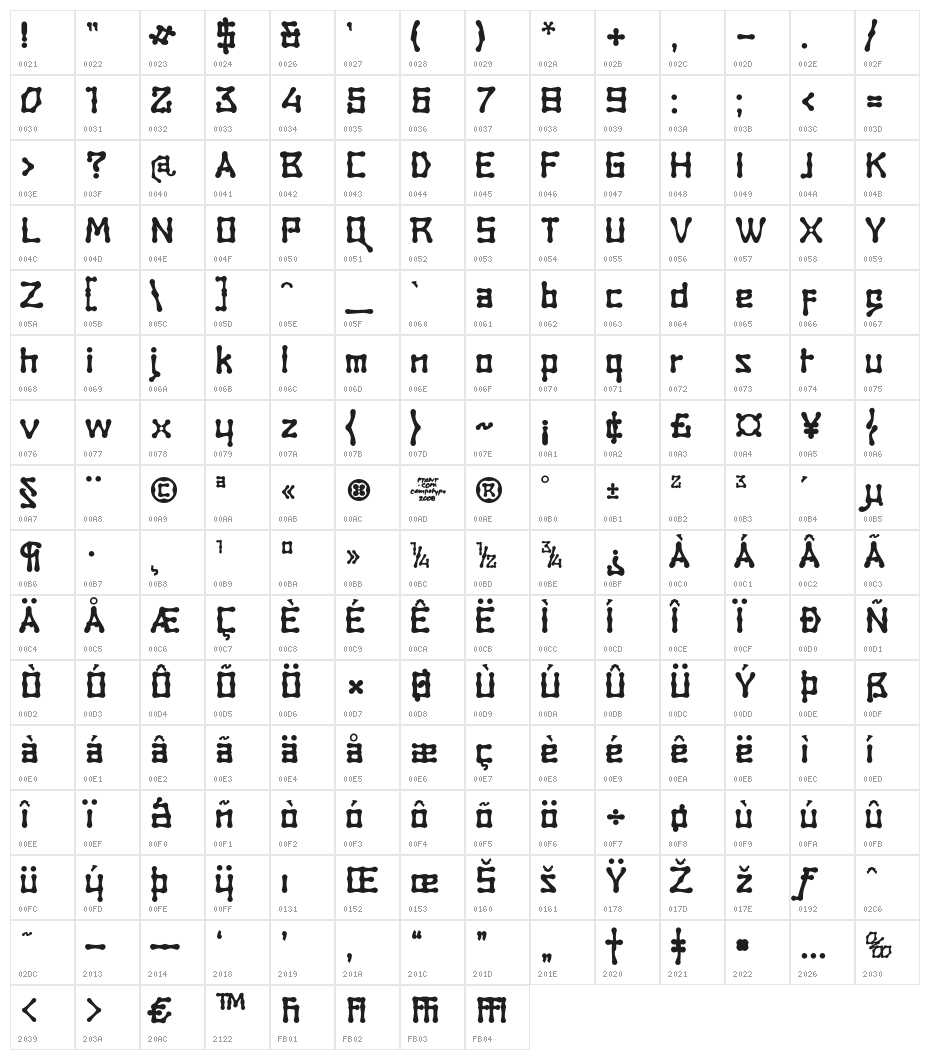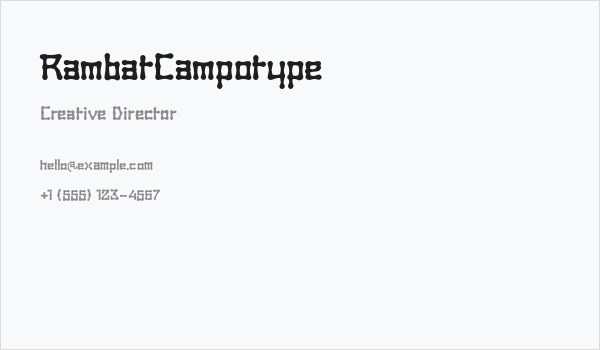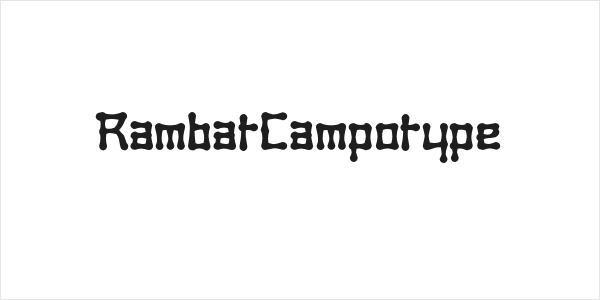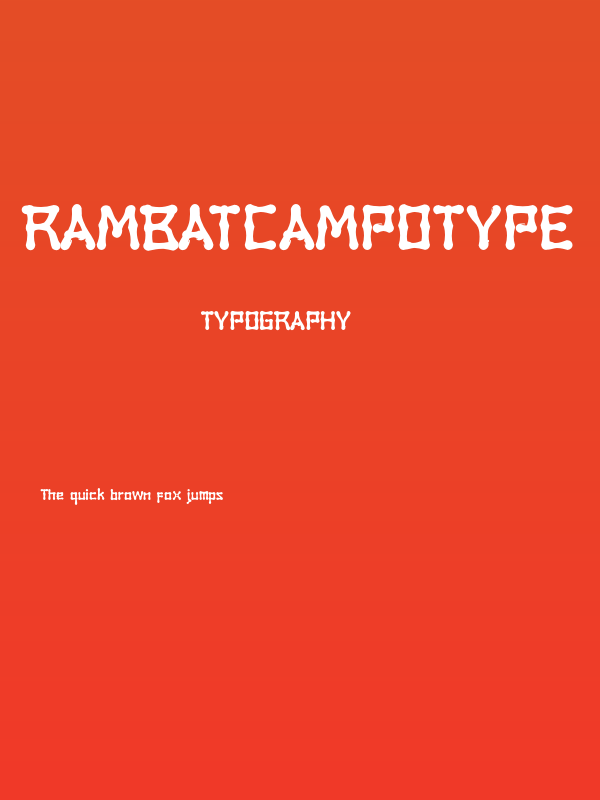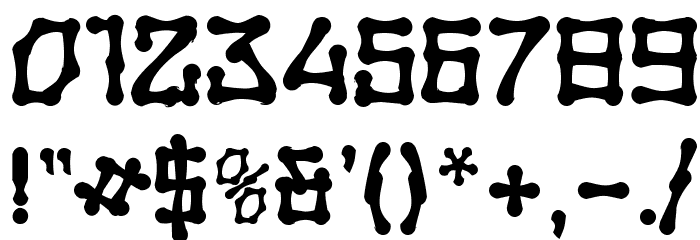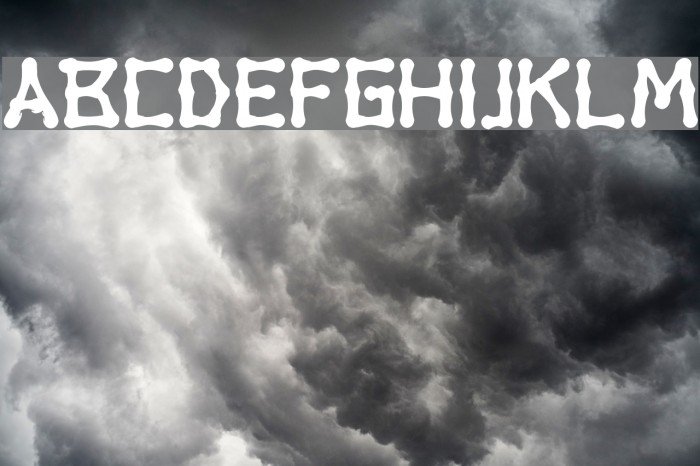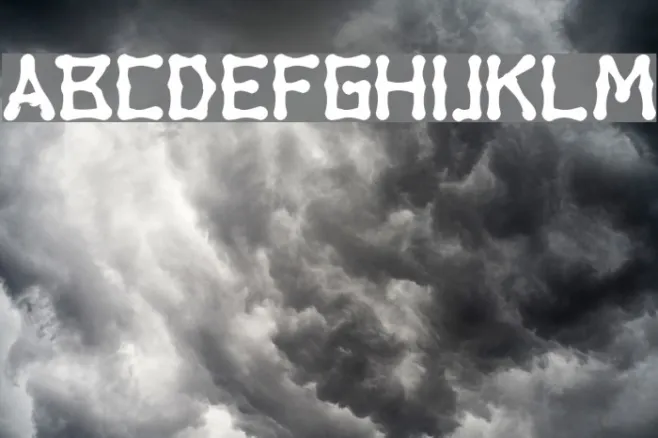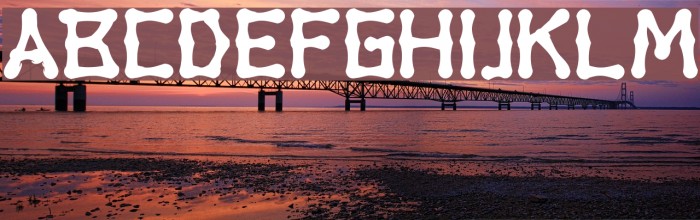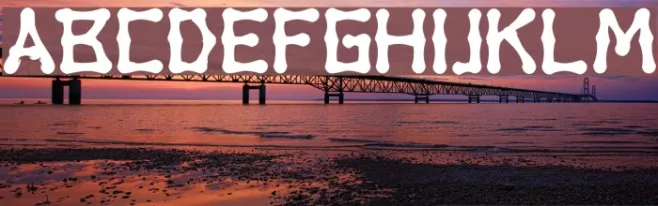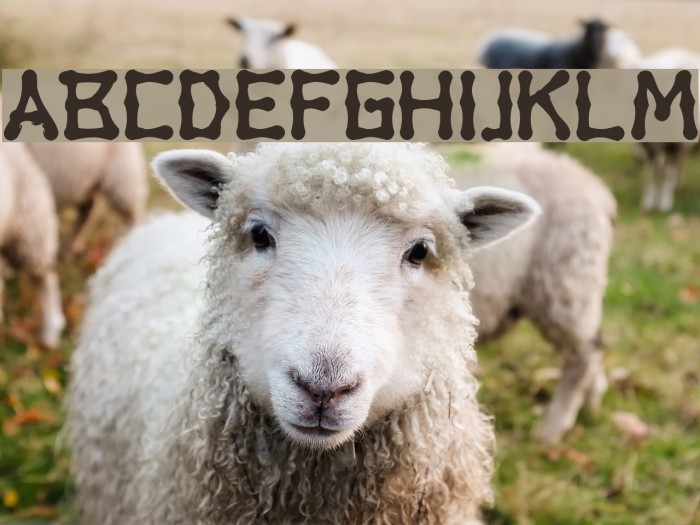
RambatCampotype Font
RambatCampotype Description
This font features a bold and rugged style with a unique, hand-drawn appearance. The characters have uneven edges and a slightly distorted form, giving them a playful and organic feel. The uppercase and lowercase letters maintain a consistent thickness, while the numbers and special characters follow the same design principles. The font's overall look is reminiscent of graffiti or street art, making it stand out with its unconventional and artistic flair.
| Use Case | Logos, Posters, Creative Branding |
| Proposed Projects | Ideal for street art-inspired designs, posters, album covers, and creative branding projects. |